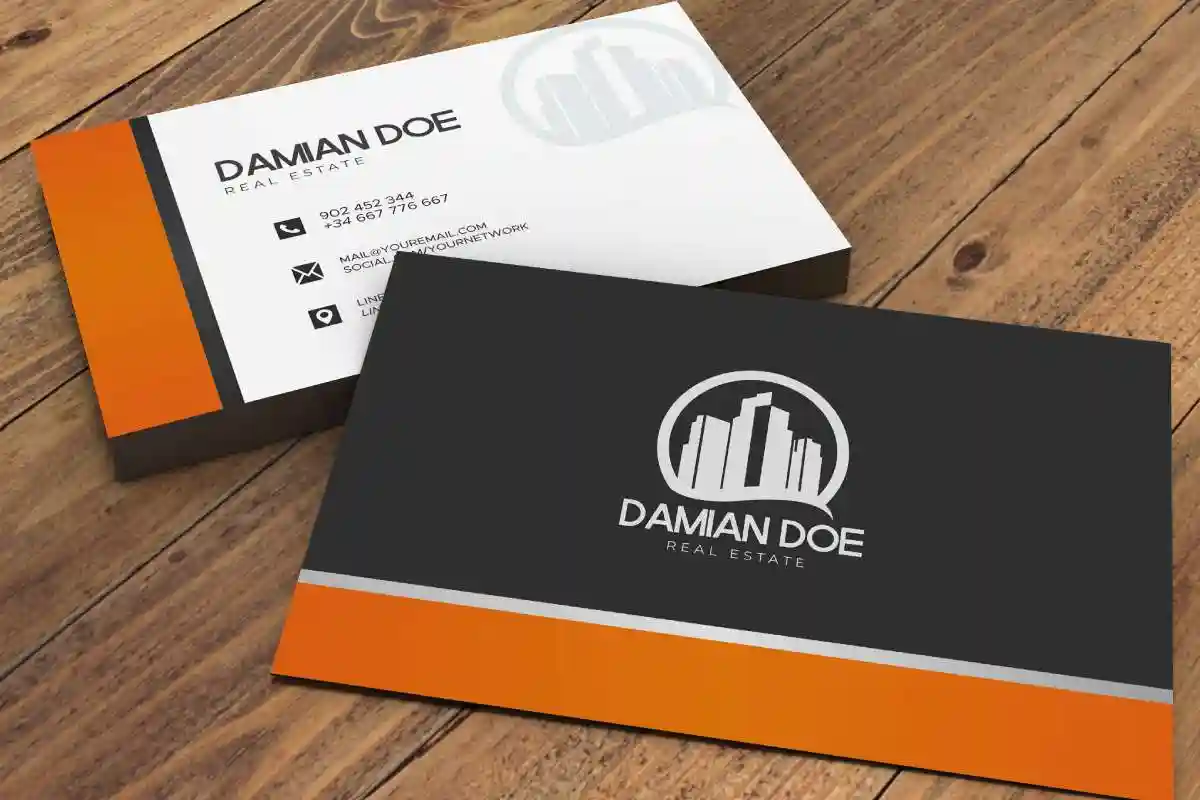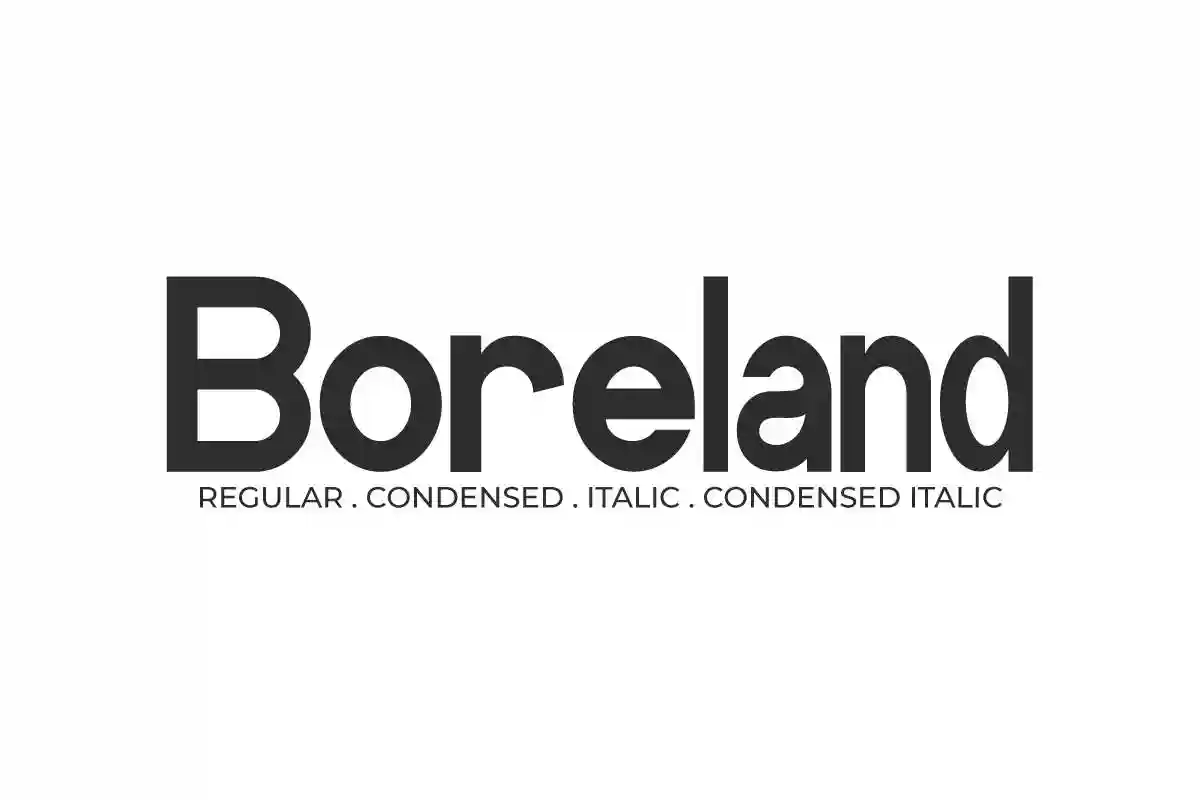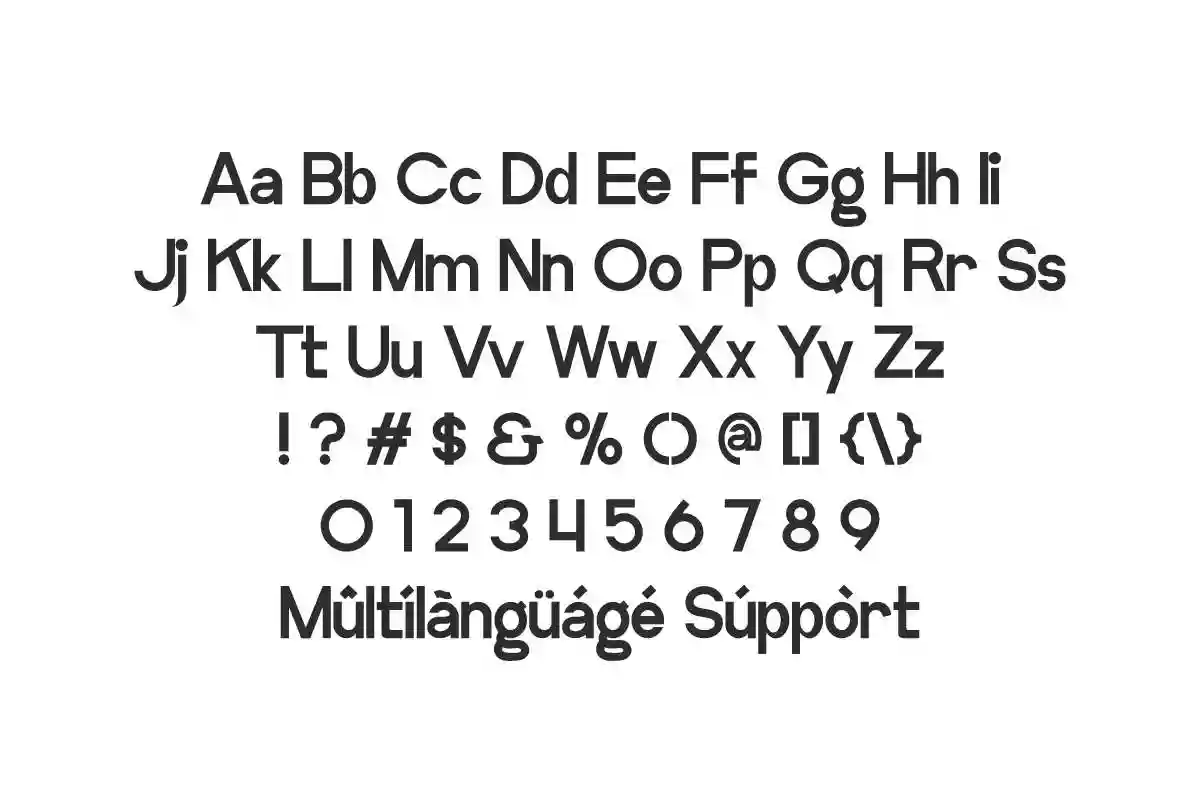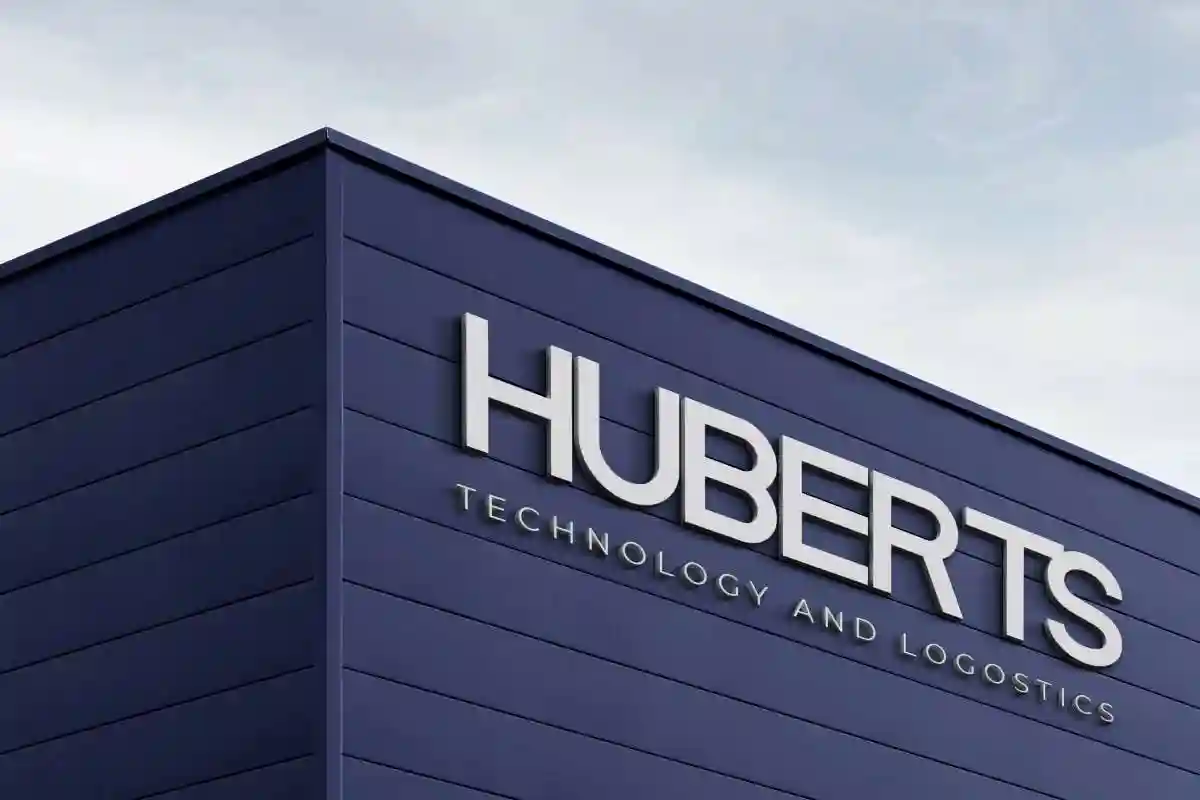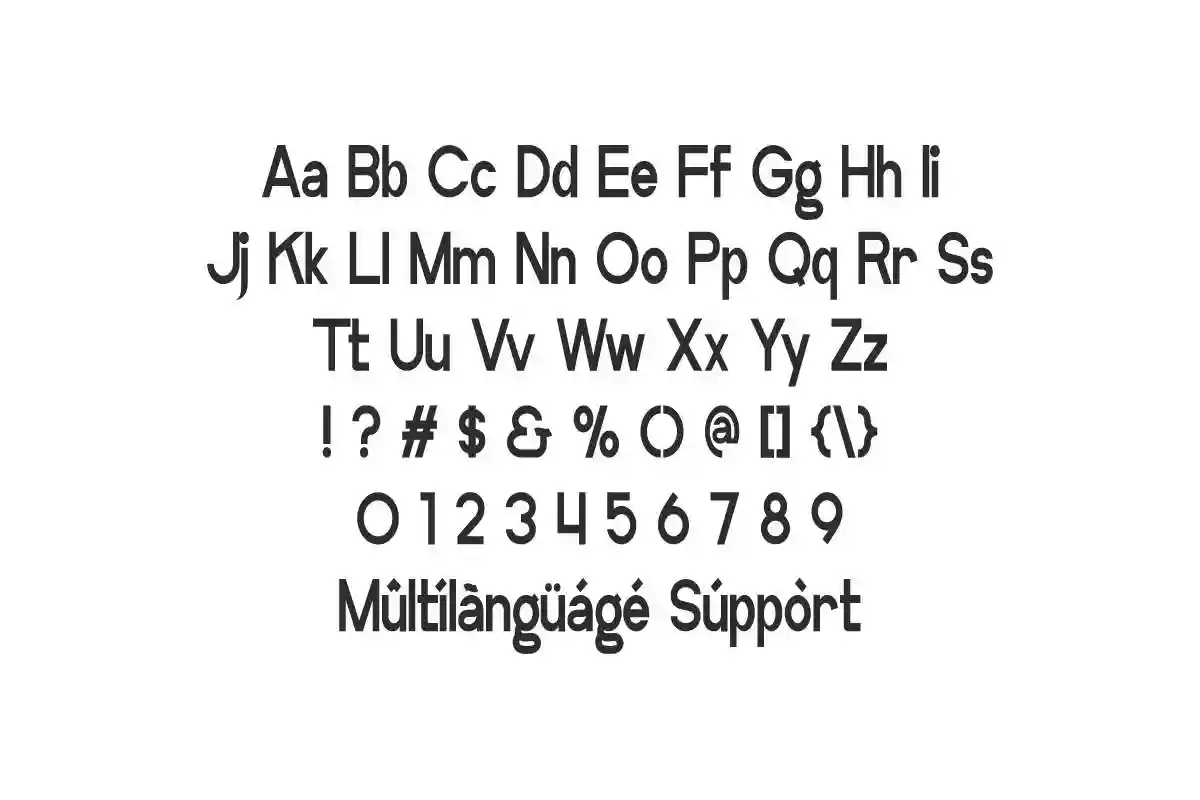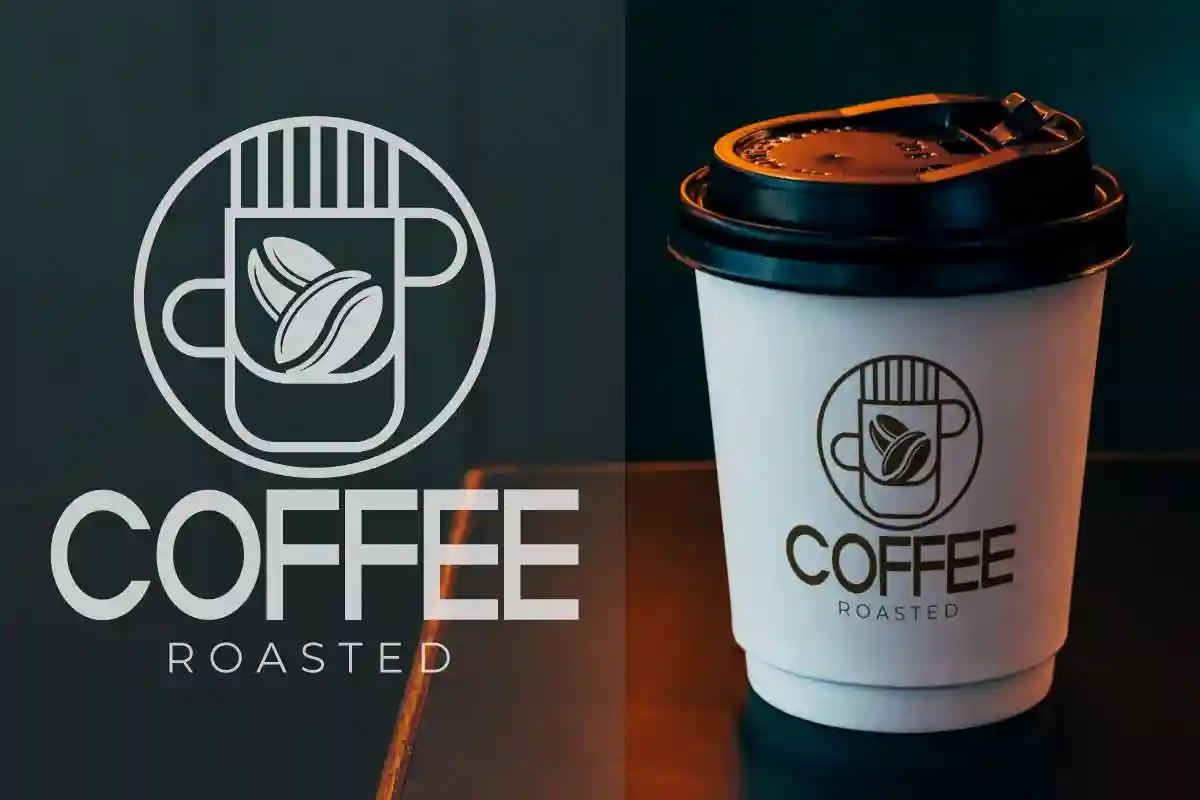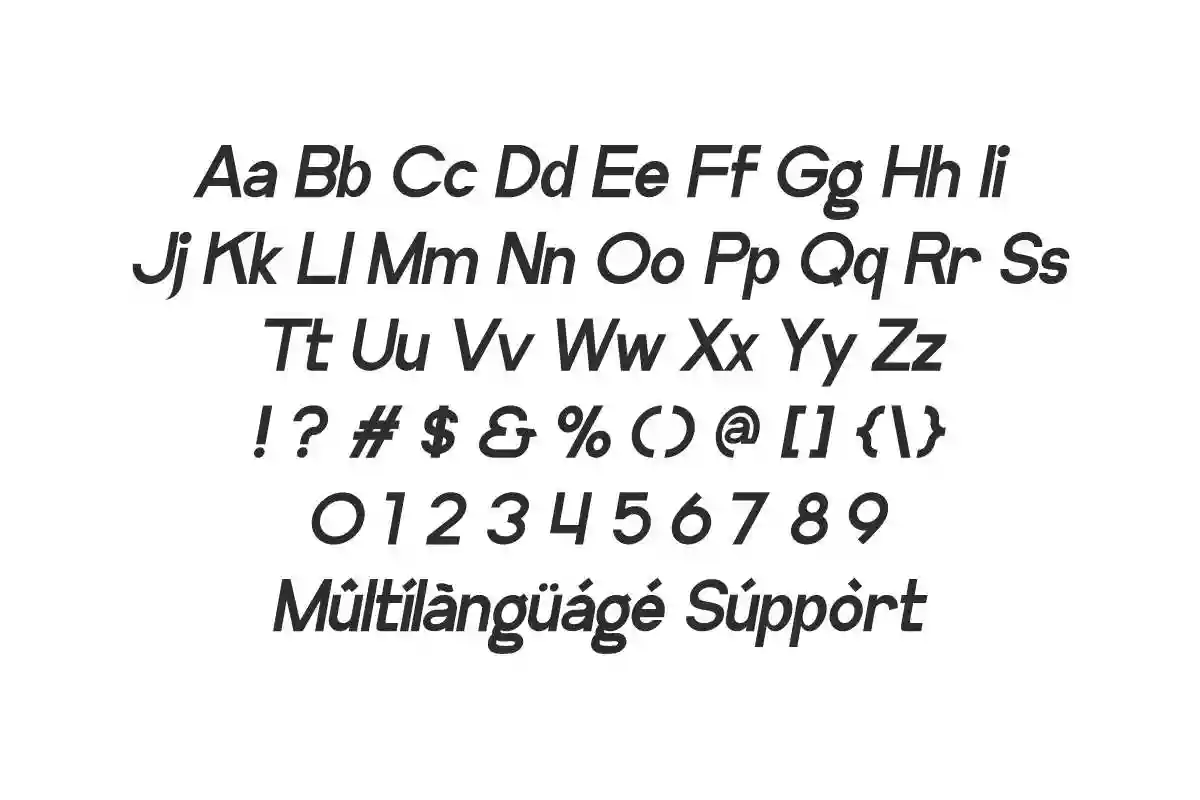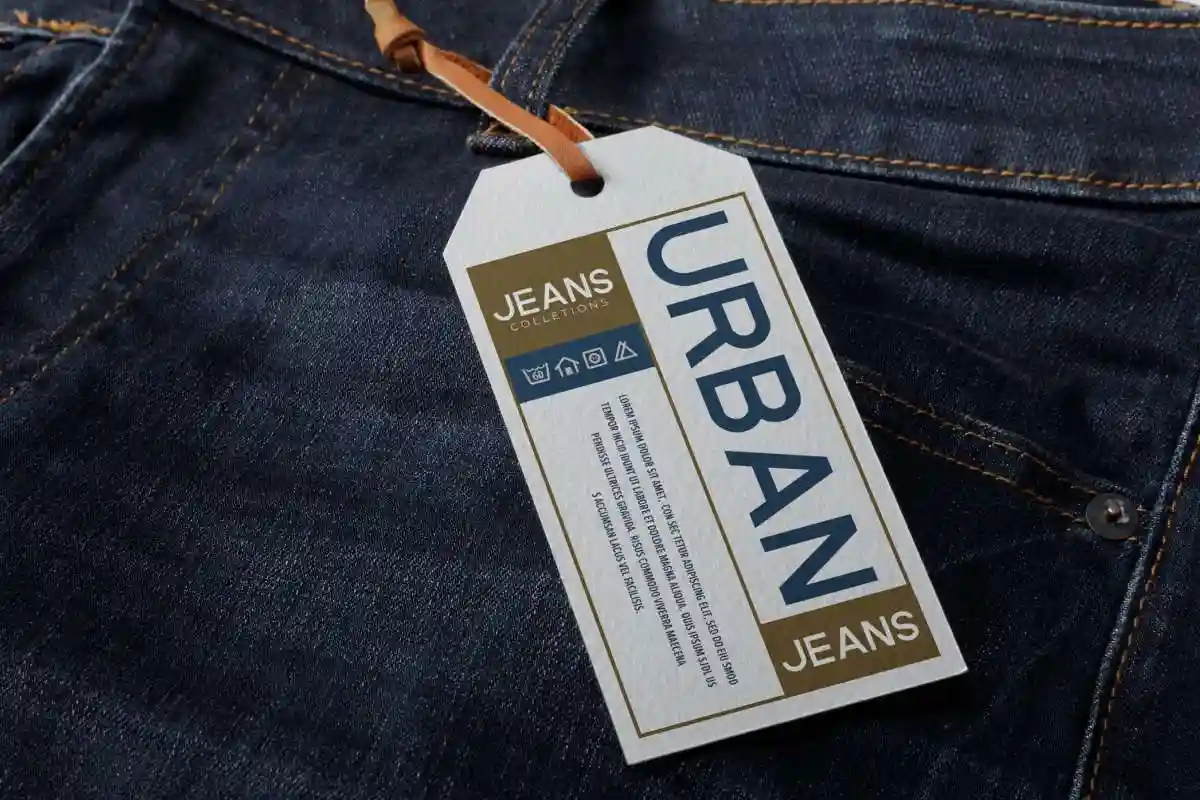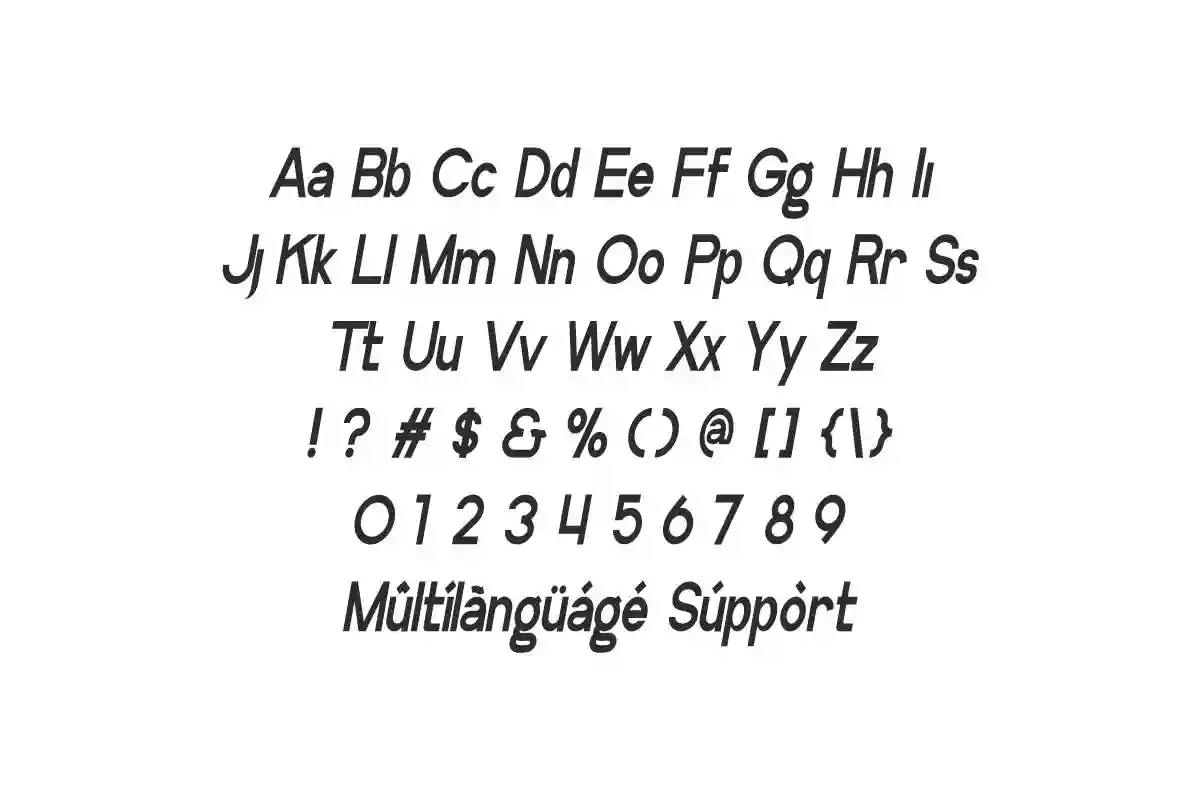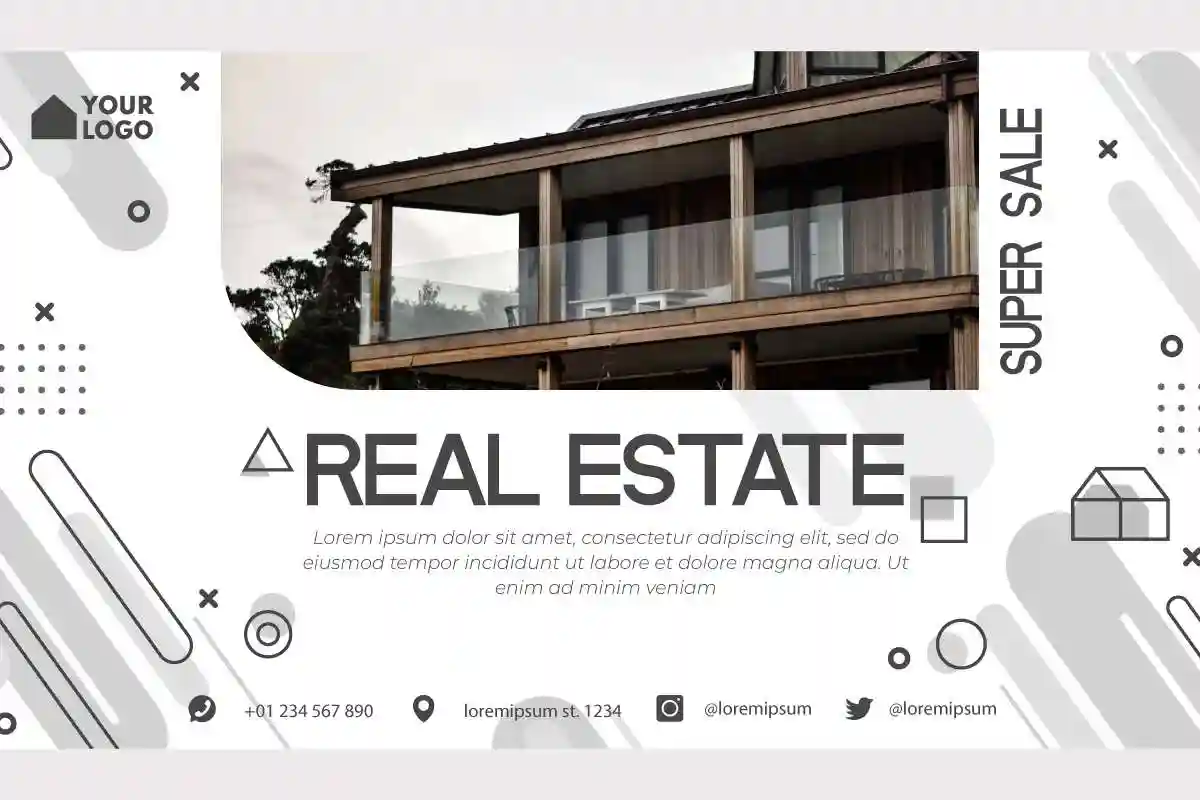
Boreland is a modern casual sans serif font family by NihStudio made in 2021, with four different styles perfect for your amazing projects
Boreland is a sans serif display font family originally designed by NihStudio. It will be suitable for many businesses and industries including clothing, films, food, beverage, games, magazines, real estate, signage, technology, websites, writers, etc. On the package you will get :
The Boreland Font has 4 styles : Regular, Italic, Condensed and Condensed Italic